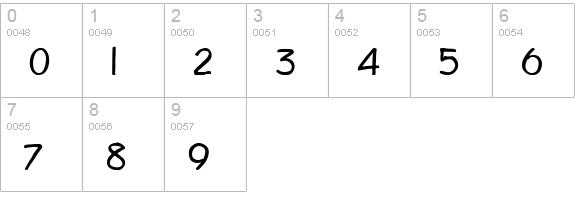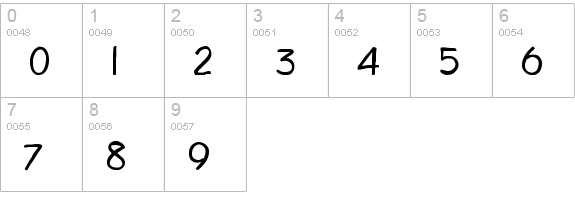
Diego1 font is a versatile and modern typeface that exudes elegance and sophistication. Its sleek lines and stylish curves make it perfect for a variety of design projects, from branding to editorial layouts. Diego1 font is ideal for creating eye-catching headlines, logos, and signage that demand attention. This font is not only visually stunning but also highly functional, with excellent readability in both print and digital formats. Its clean and crisp letterforms ensure that your message is conveyed clearly and effectively. Whether you're designing a website, a poster, or a business card, Diego1 font will elevate your project to the next level. Best of all, Diego1 font is available for free download at FontsMarket.com. You can easily access this premium font and use it in your personal and commercial projects without any cost. Don't miss out on the opportunity to enhance your designs with the sophisticated charm of Diego1 font. Download it today and elevate your creative endeavors to new heights.